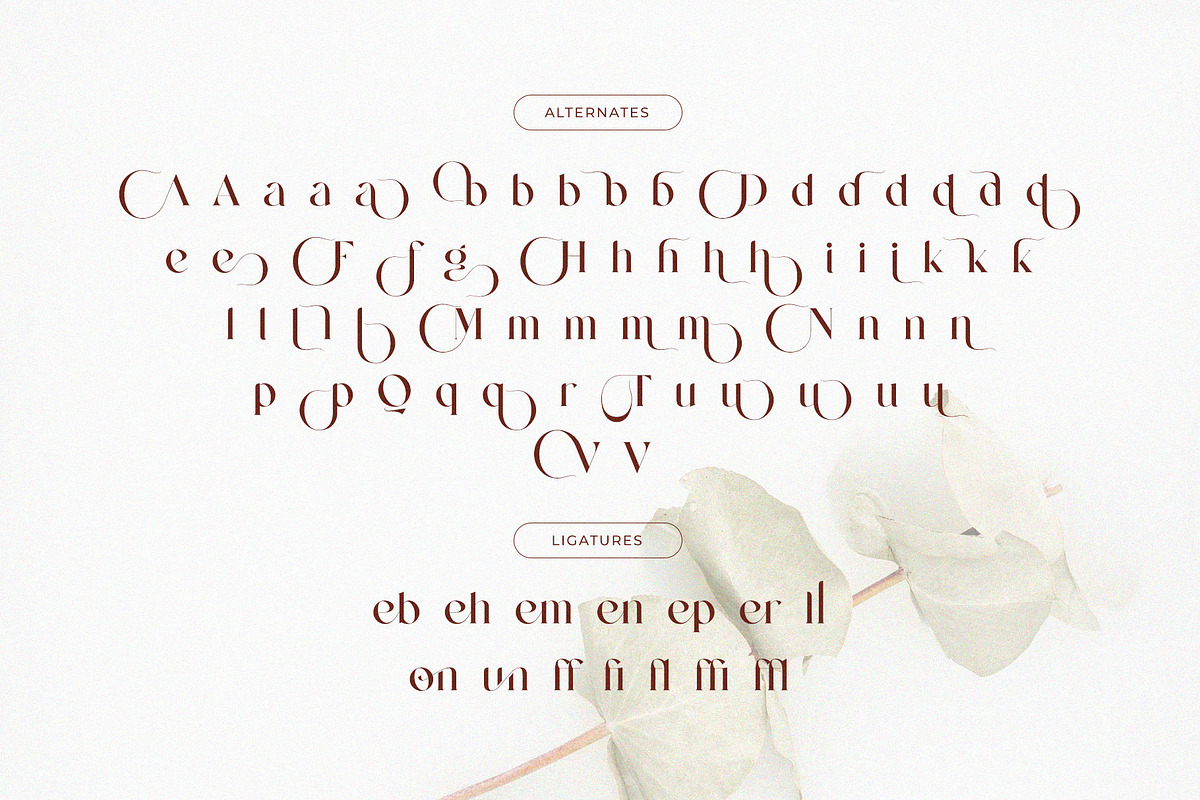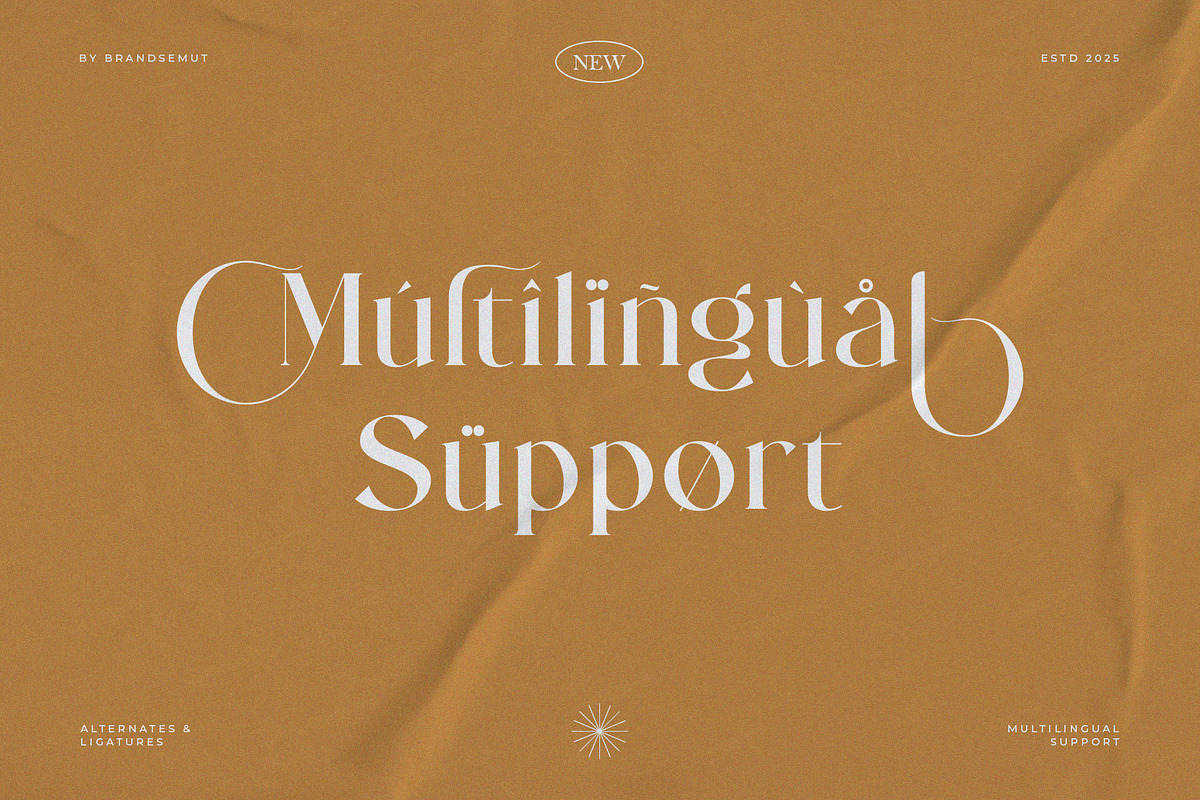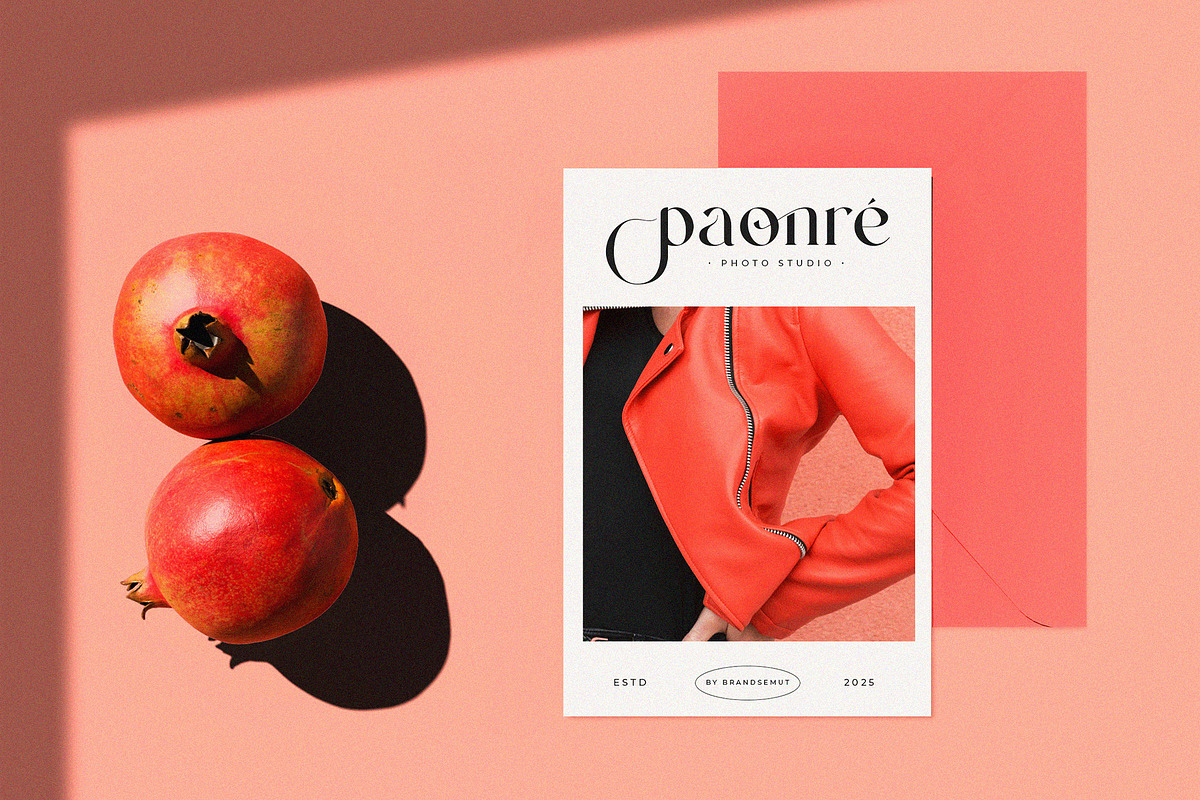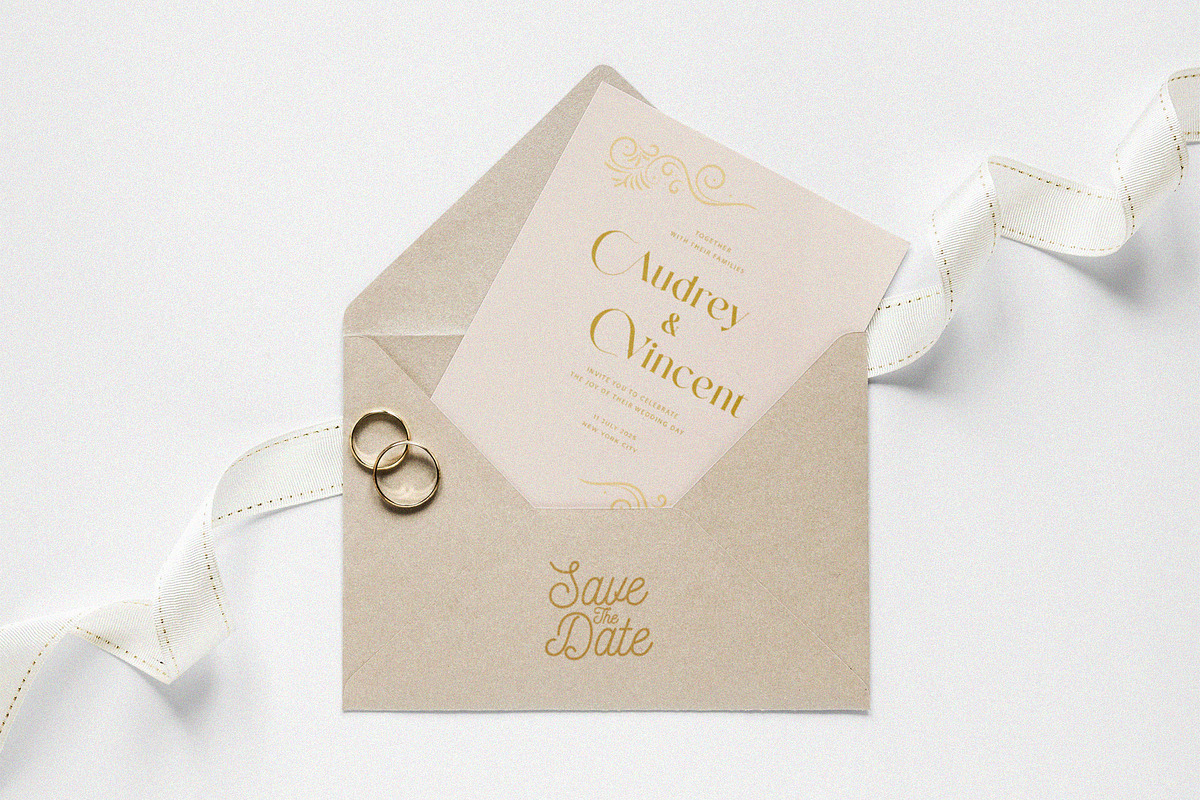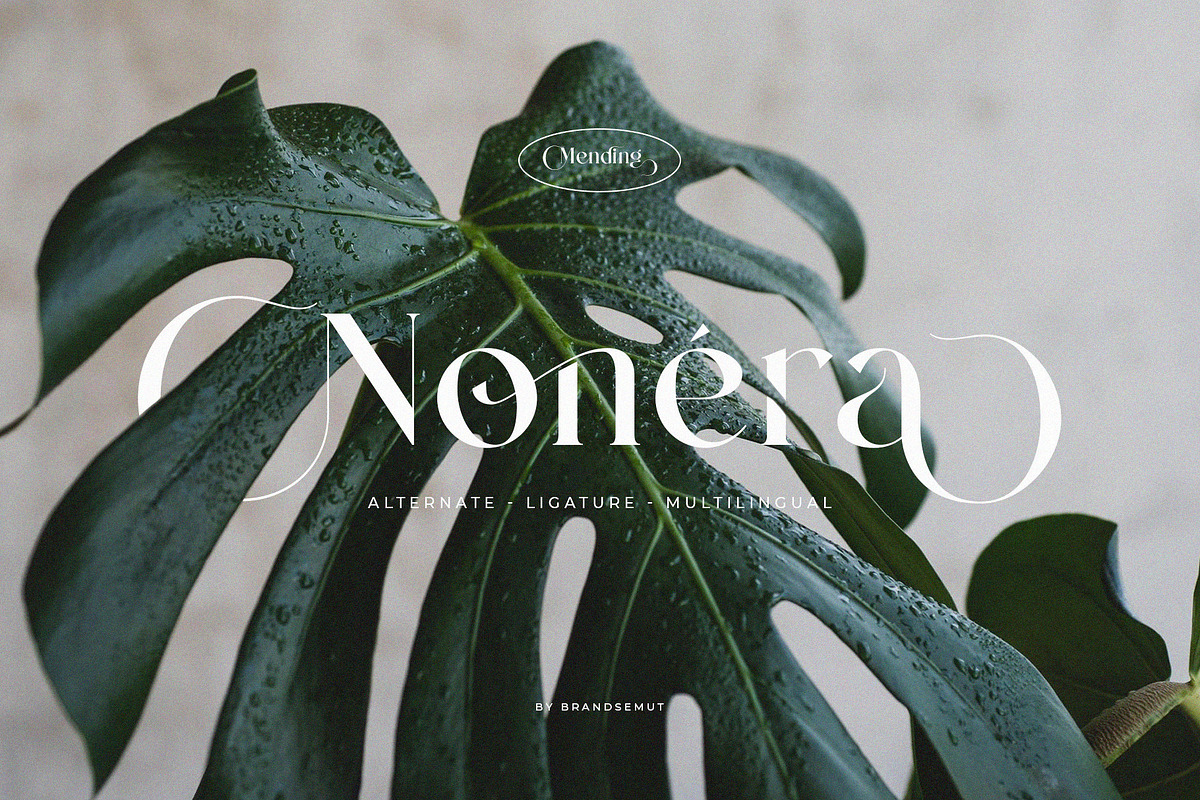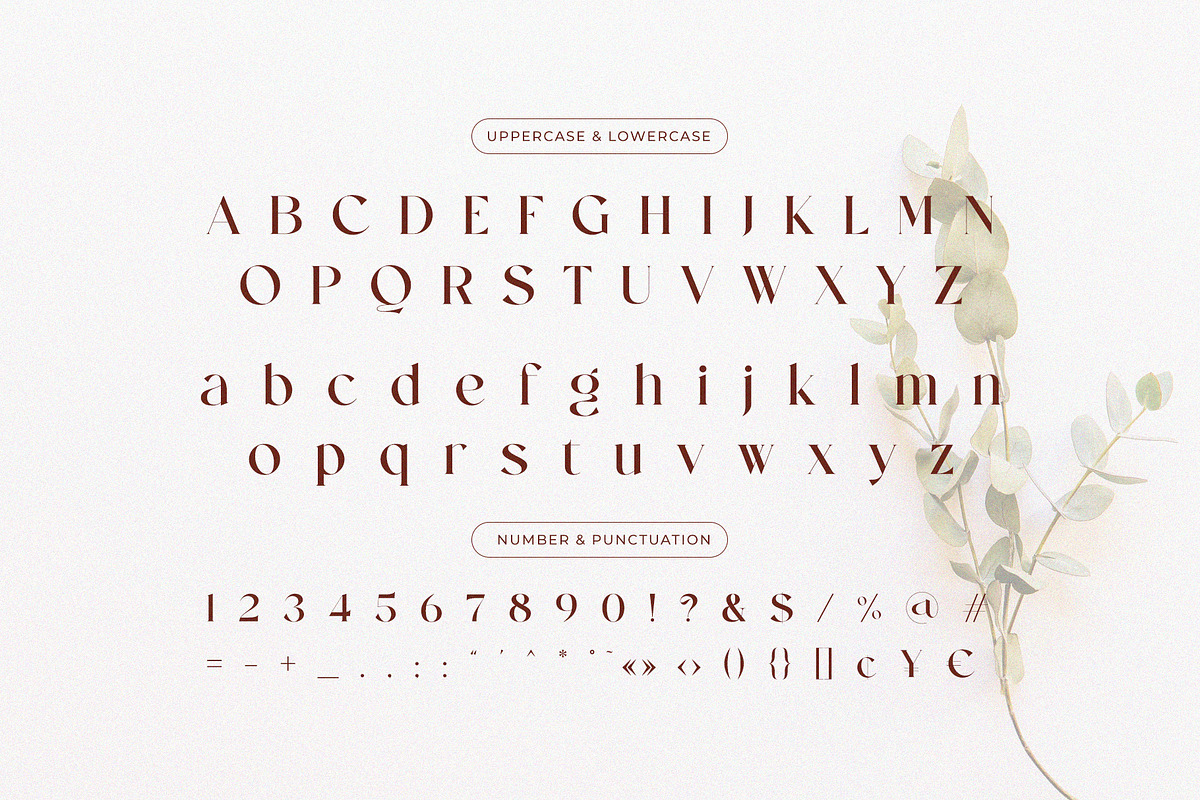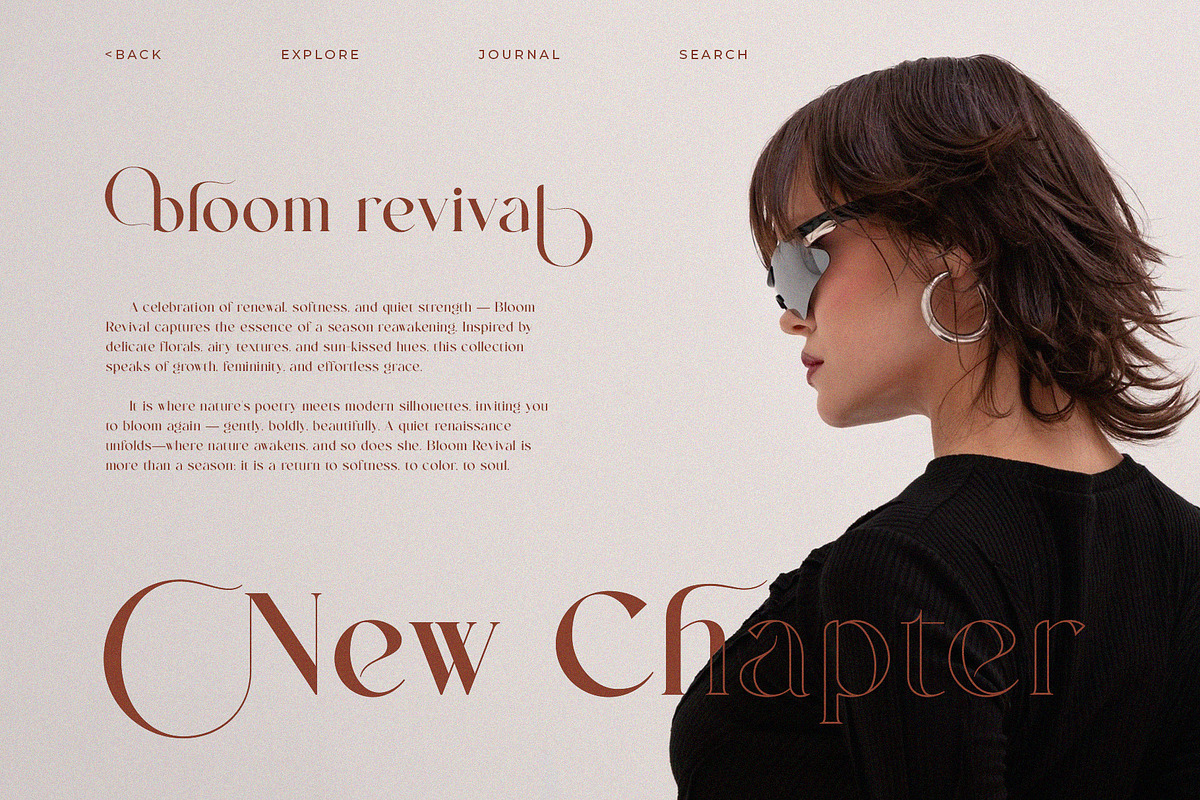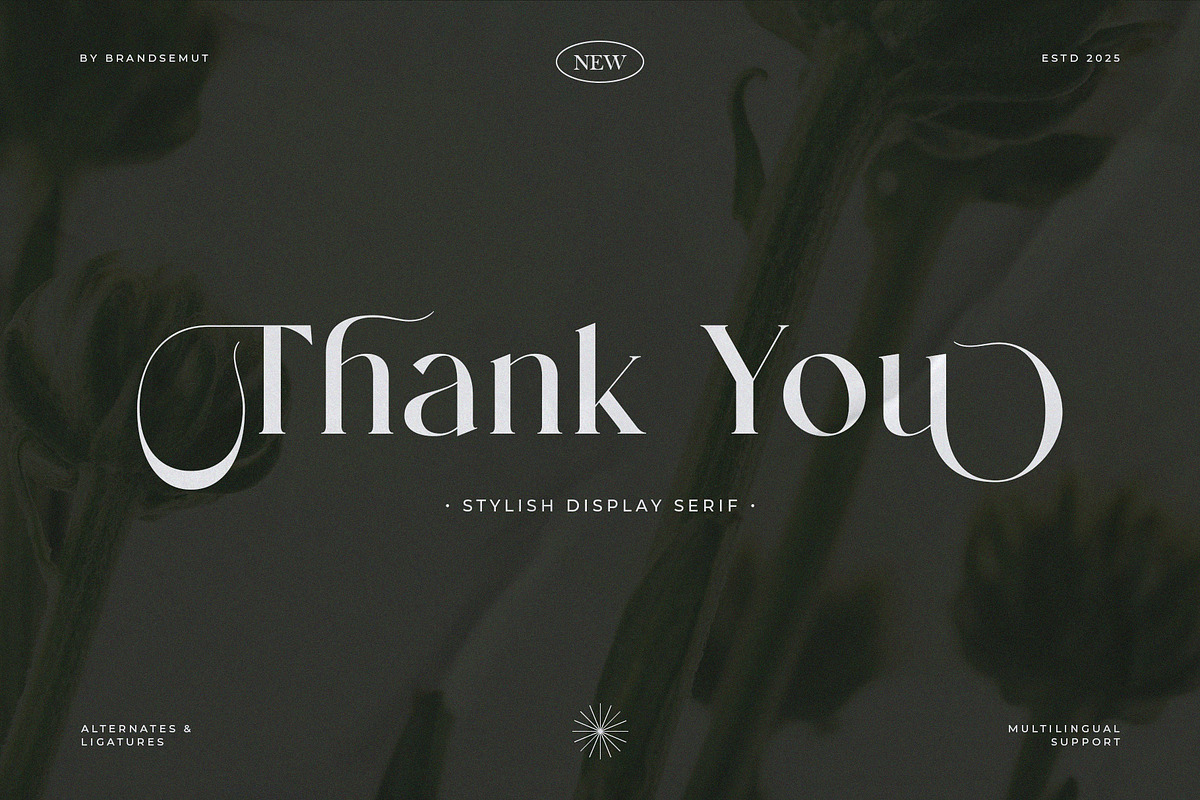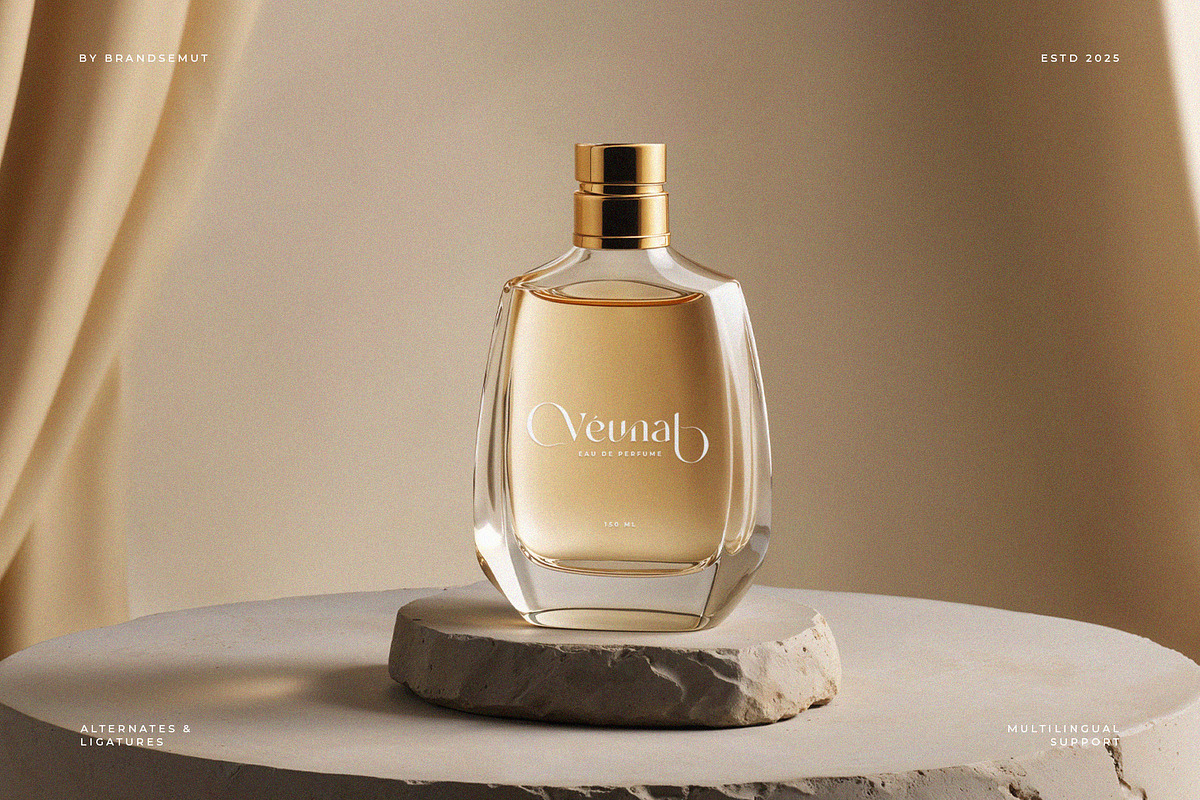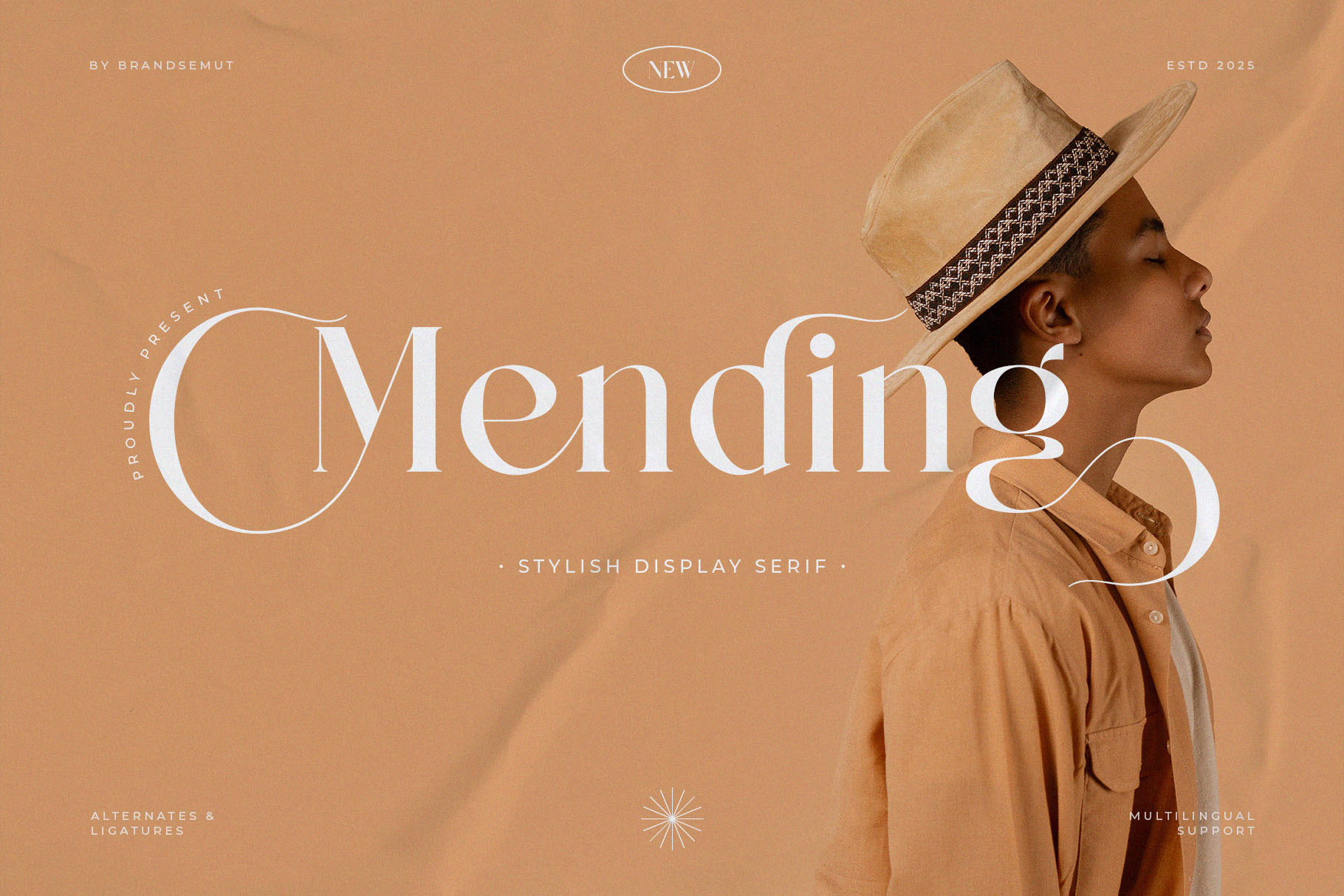
Mending – Stylish Display Serif Font
Mending – Stylish Display Serif Font with Uppercase & Lowercase, Swashes & Ligatures for Fashion Branding & Editorial Use
Mending is a stylish and elegant display serif font designed with expressive swashes and refined ligatures that give your typography a distinctive personality. Featuring full uppercase and lowercase characters, Mending is perfect for branding, editorial titles, social media visuals, product packaging, and wedding invitations that demand elegance with flair.
With its graceful contrast and artistic letterforms, Mending brings a harmonious blend of tradition and modernity — ideal for creative professionals looking to elevate their design.
- Fashion branding & lookbooks
- Editorial magazine titles & photography portfolios
- Wedding stationery & elegant invitations
- Boutique product packaging & beauty labels
- Social media graphics & typography quotes
- Beautiful alternates & expressive ligatures
- High-contrast serif construction
- Suitable for both digital & print formats
Make your design unforgettable with Mending, a serif font that captures movement, emotion, and timeless style.